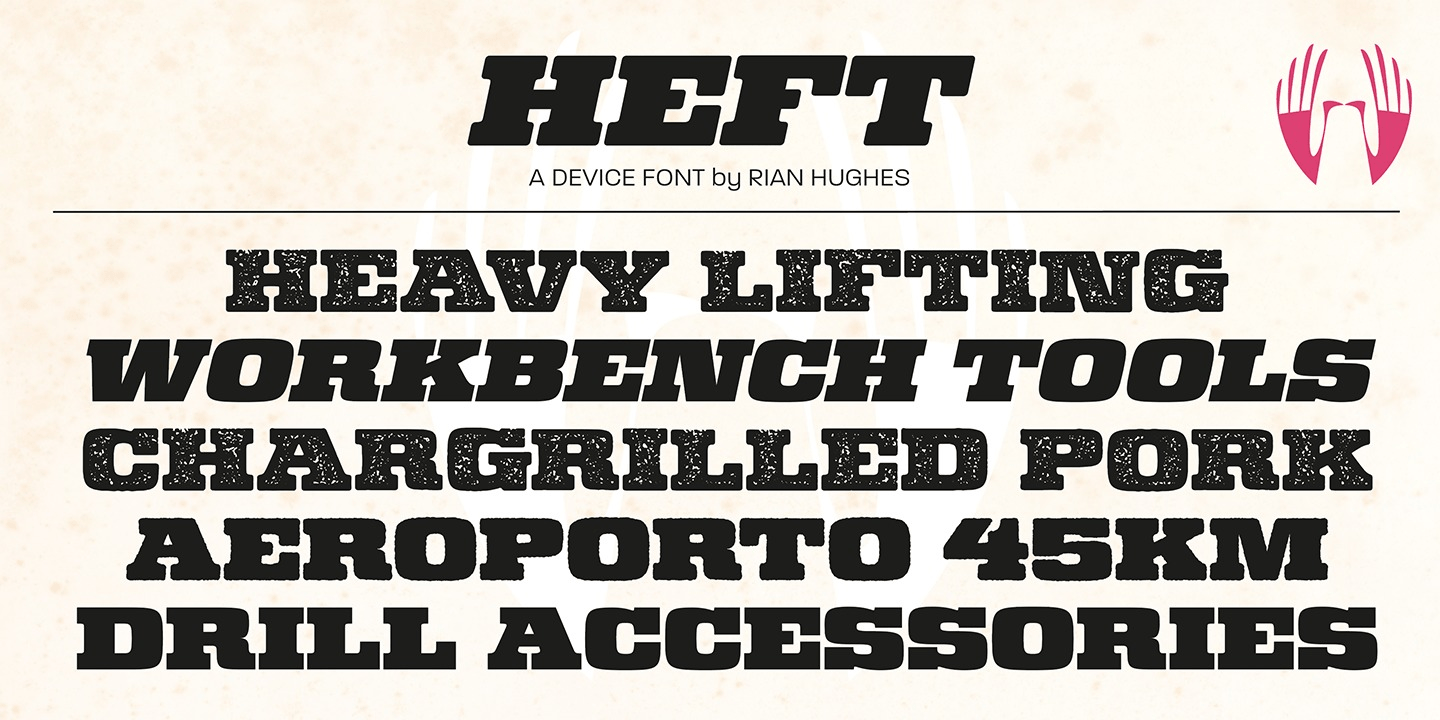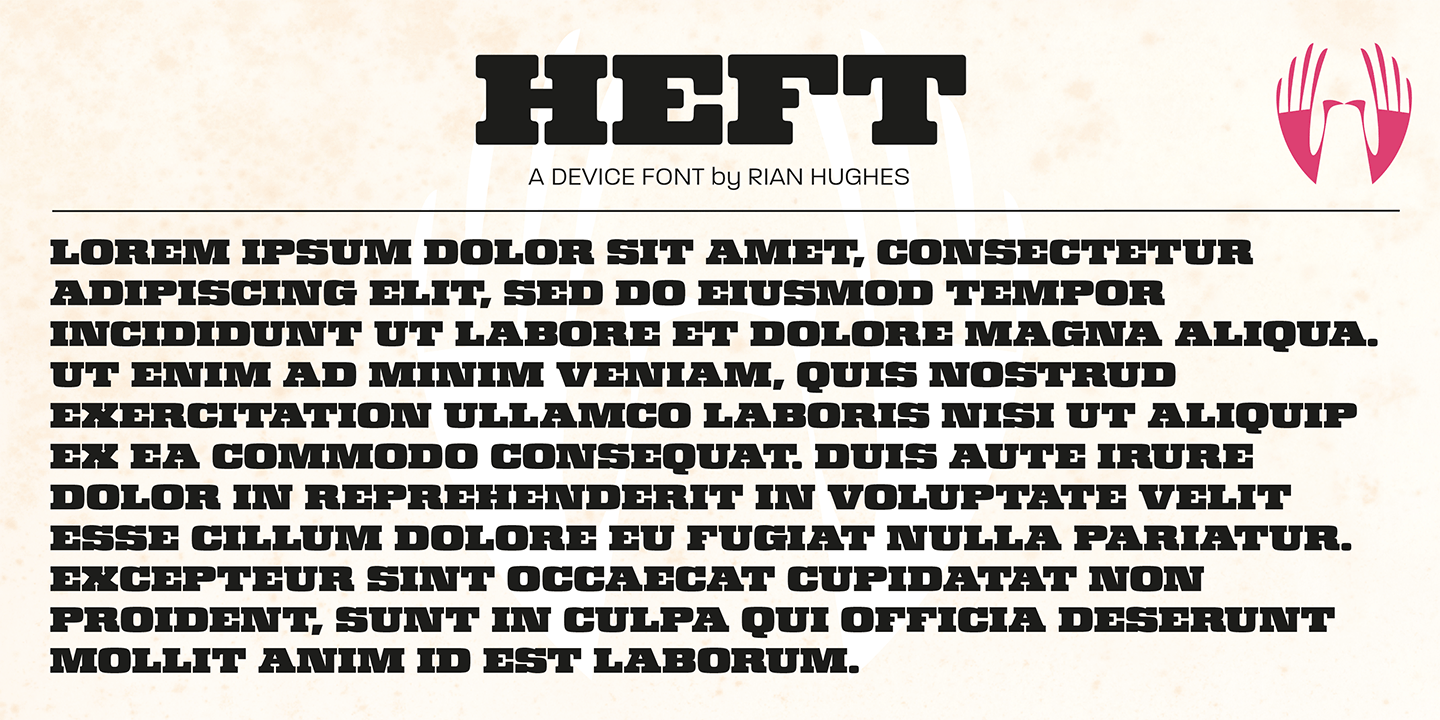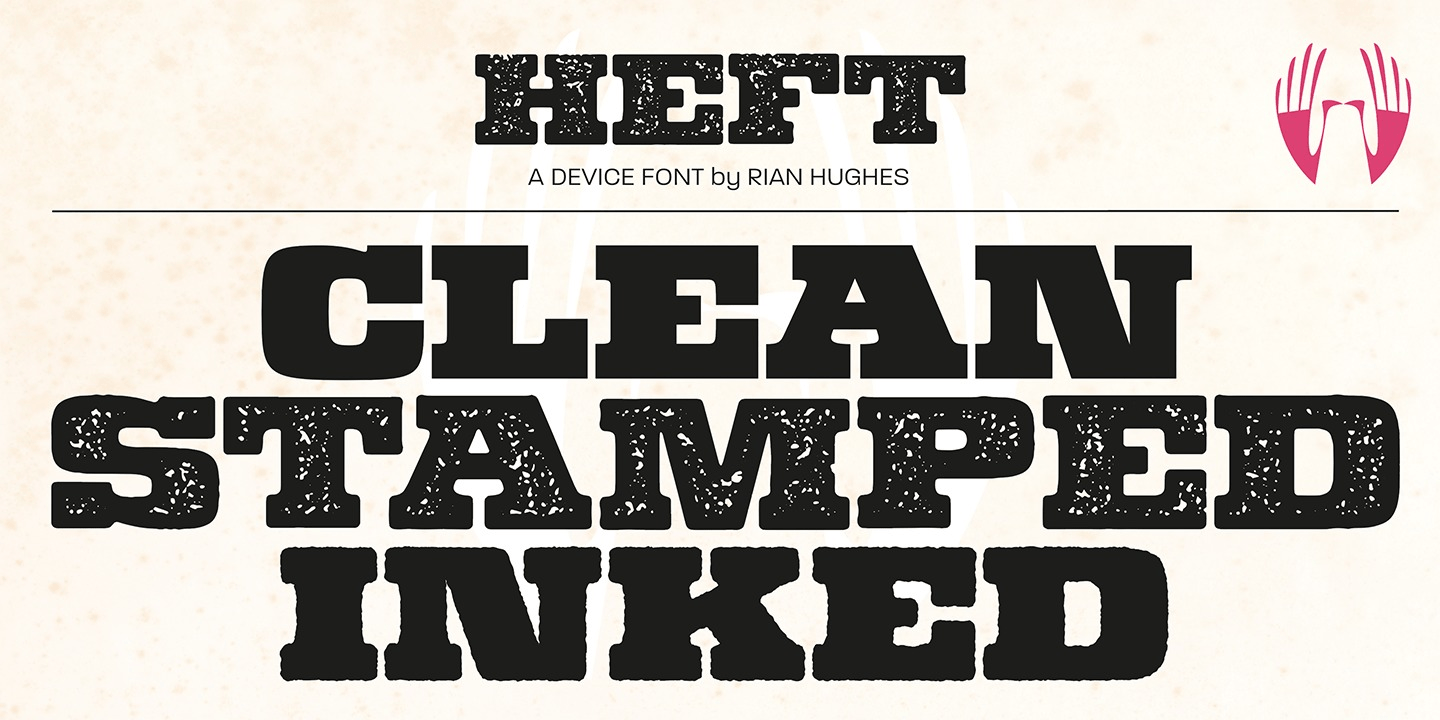
Heft is a heavy slab serif that packs a powerful punch. Available in square-cornered and rounded versions, each with italics, plus two distressed variants ? an inky version that evokes the urgency of cheap hot-metal printing, and a worn, distressed version…